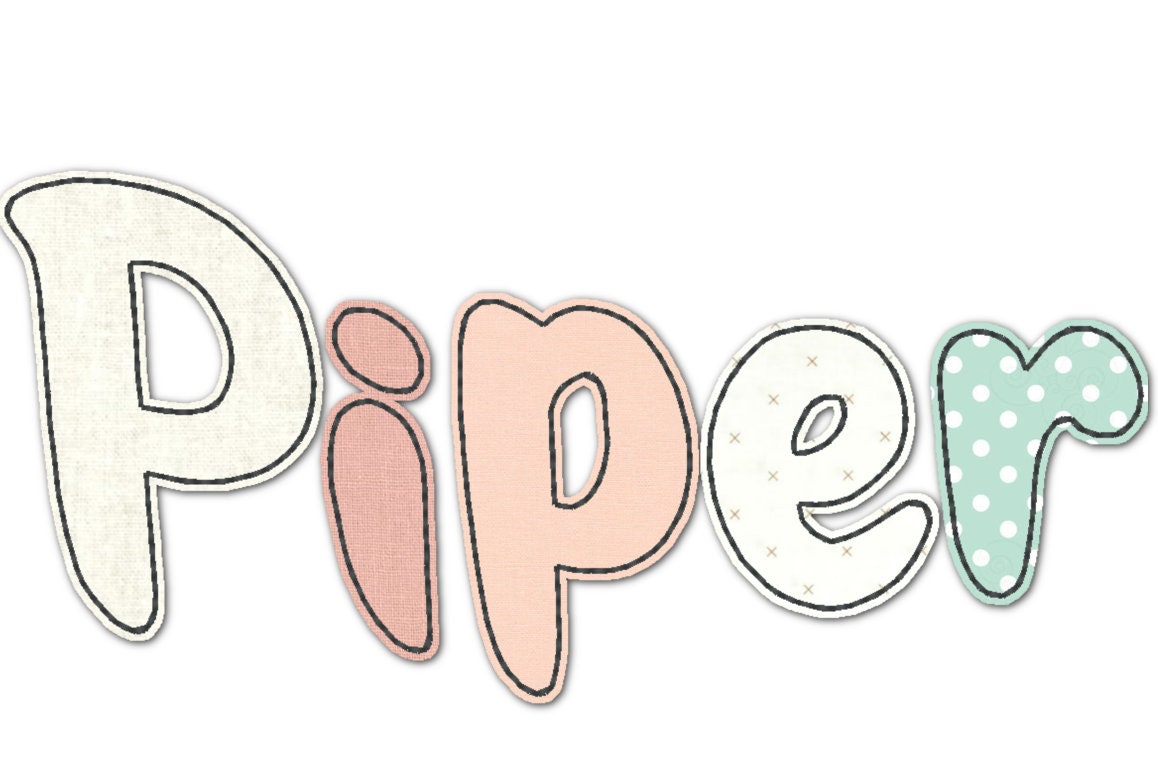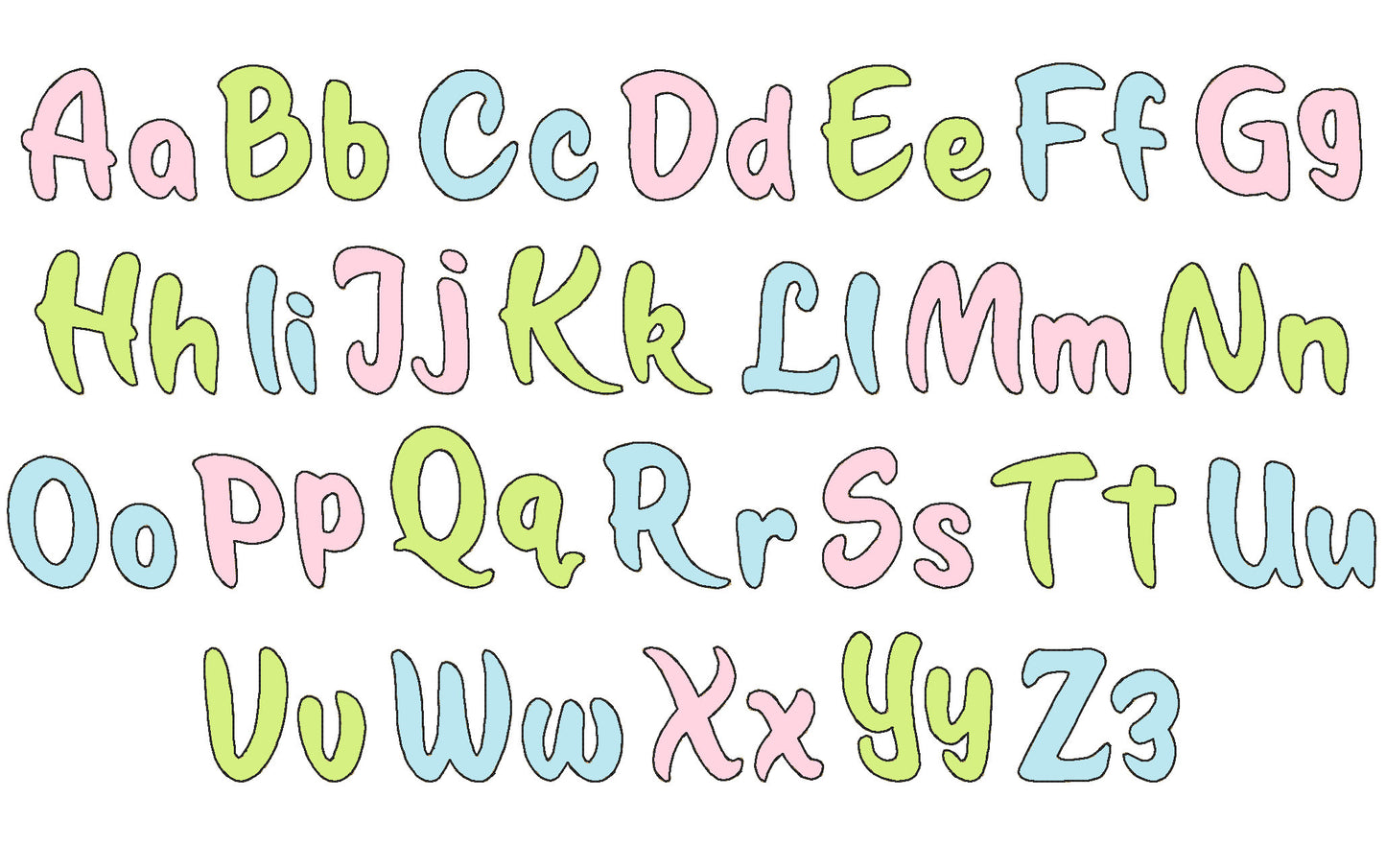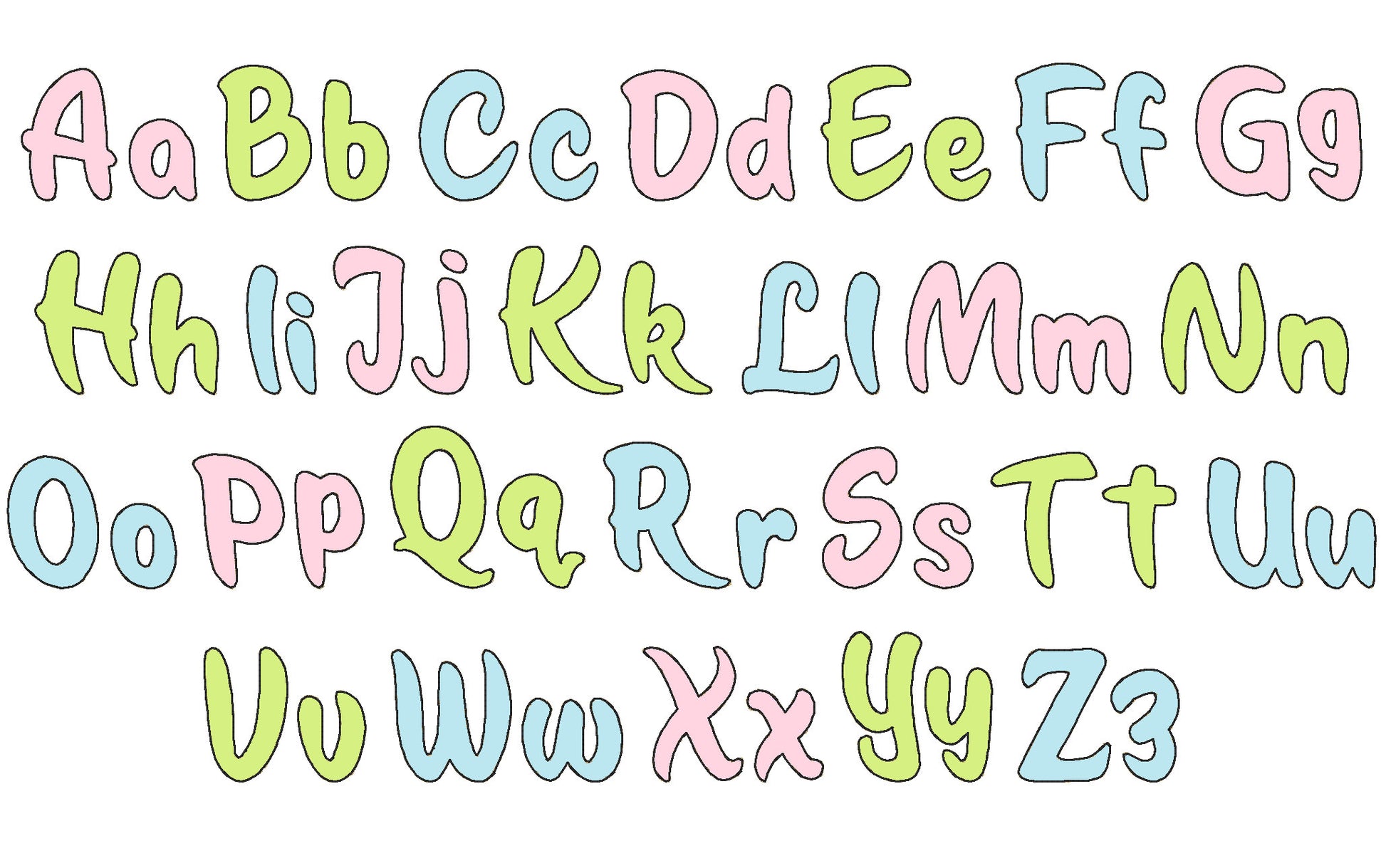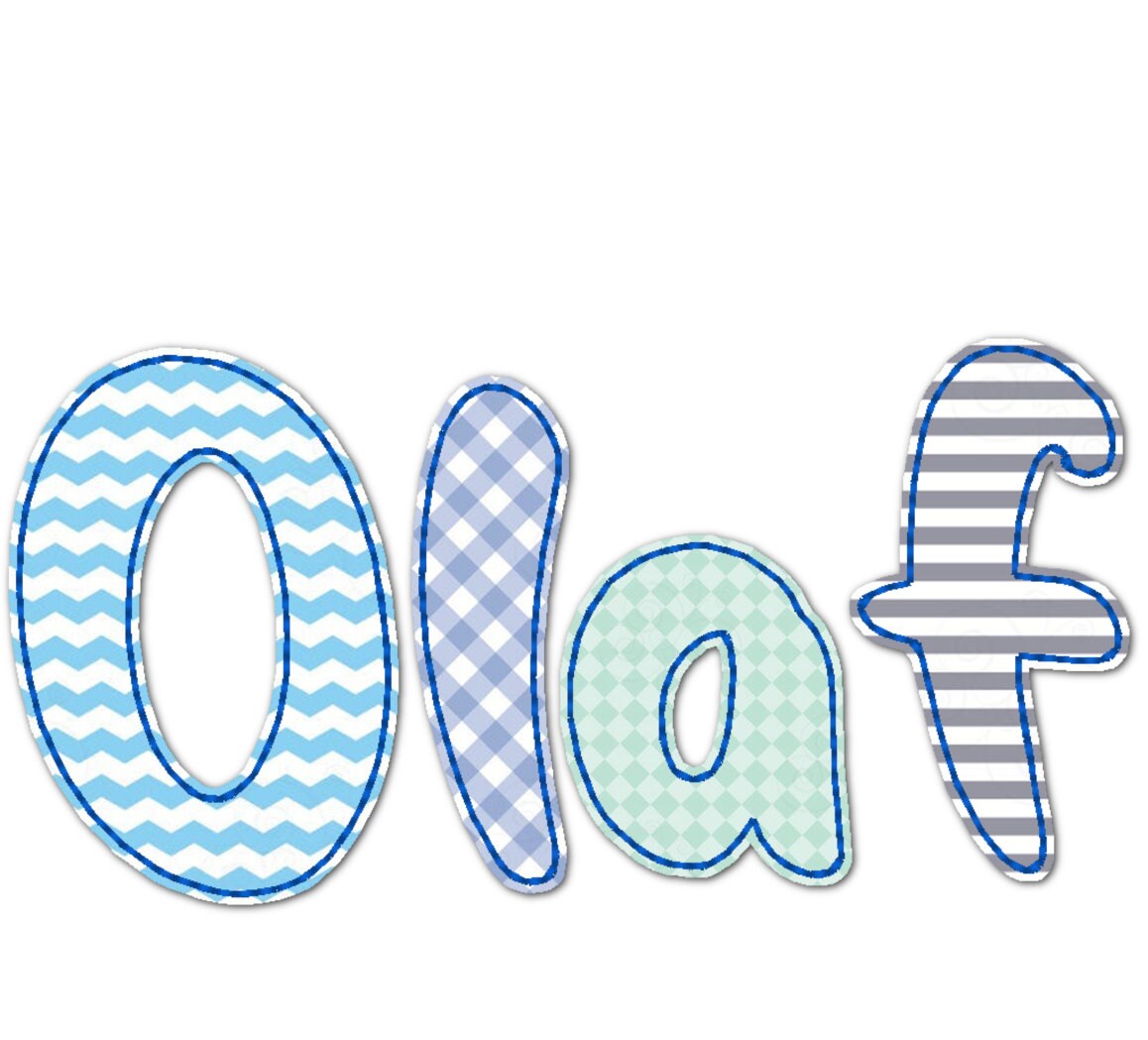
Or click to open the linkA raggedy edge applique font with free, raw edges for a soft, handmade look. Lovely for baby quilts, pillows, kids' shirts and bags.
Uppercase and lowercase letters in ten sizes: 1, 1.2, 1.6, 2, 2.4, 2.8, 3.2, 3.6, 4.4 and 5.2 inches. Free-edge applique that frays softly after washing.